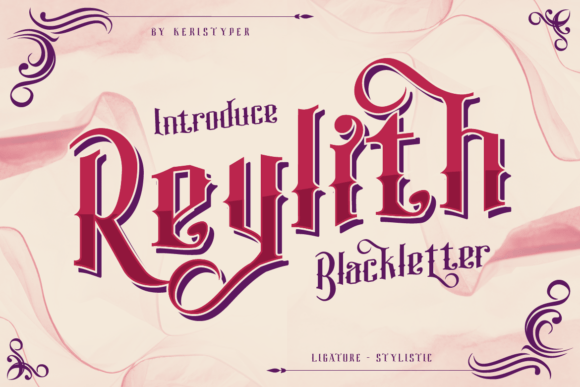
Adorn your designs with the mystique of Reylith Font, a captivating blackletter typeface inspired by the allure of tattoo art. This font is a masterpiece, meticulously crafted by Keristyper, a visionary in the world of typography. Reylith beckons you to unleash your creativity, transforming your designs into captivating works of art.
With Reylith Font, you hold the key to unlocking a world of boundless possibilities. Its intricate characters exude a timeless charm, reminiscent of ancient manuscripts and the allure of bygone eras. This font is a testament to the enduring beauty of blackletter, adapted for the modern age with a contemporary touch.
Experience the versatility of Reylith Font, a font that seamlessly adapts to a myriad of design projects. Whether you seek to create an eye-catching logo, engage your audience on social media, or craft captivating movie and book titles, Reylith Font rises to the occasion. Its versatility extends to short and long texts, making it an ideal choice for a wide range of applications.
Envision the impact of Reylith Font as a secondary text font, paired with a sleek sans or serif font. Its presence adds depth and intrigue to your designs, creating a harmonious balance that captivates the eye. Reylith Font is a masterclass in typography, a font that elevates your designs to new heights of sophistication and elegance.
Do not resist the call of Reylith Font. Its allure is undeniable, its beauty undeniable. Embrace its charm and unlock the full potential of your creativity. Let Reylith Font guide you on a journey of artistic exploration, where your designs transcend the ordinary and become extraordinary.